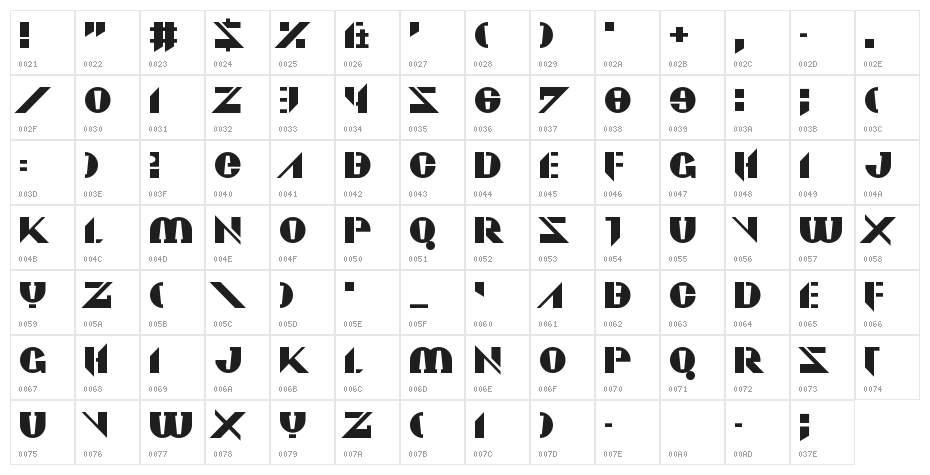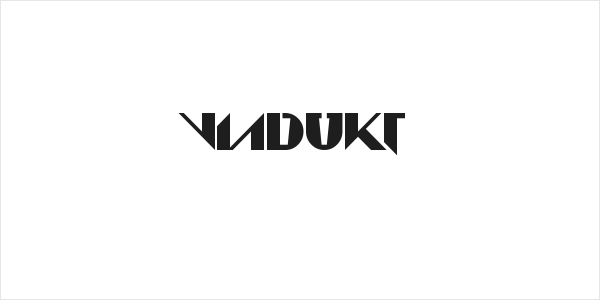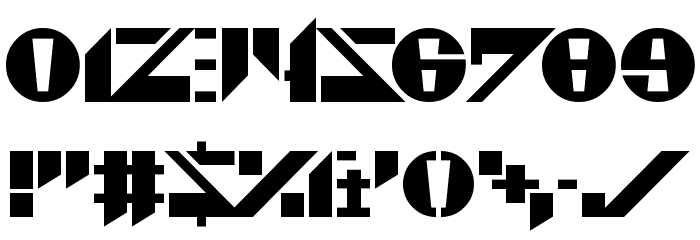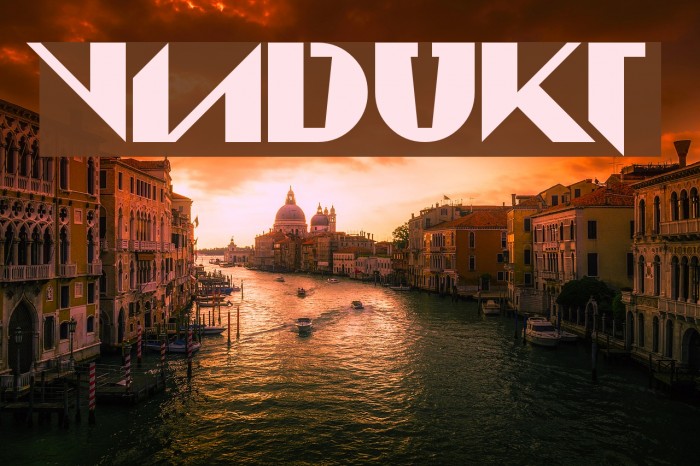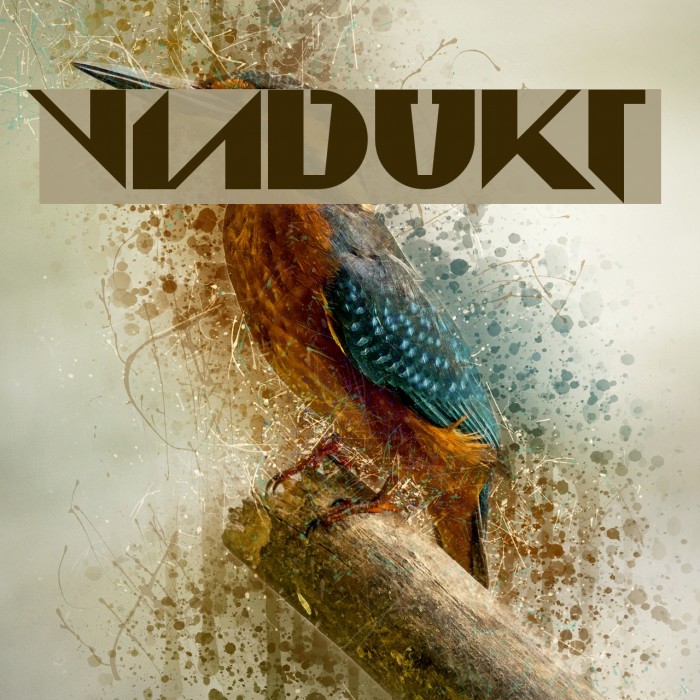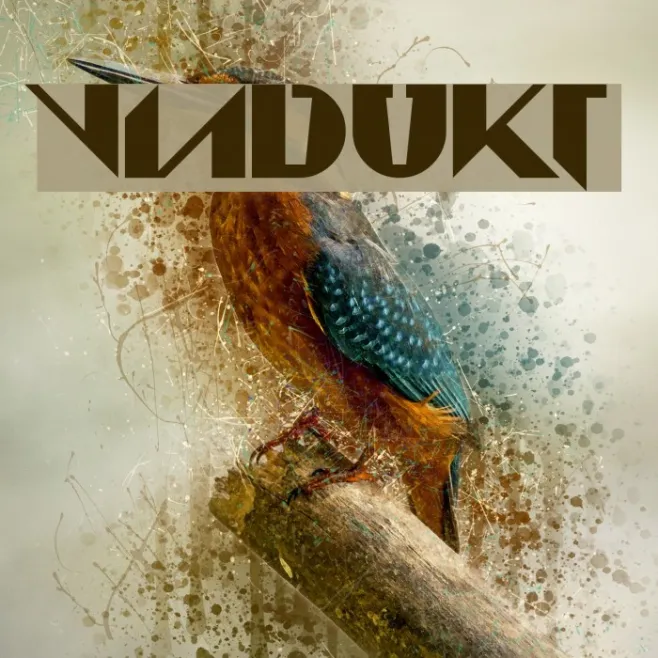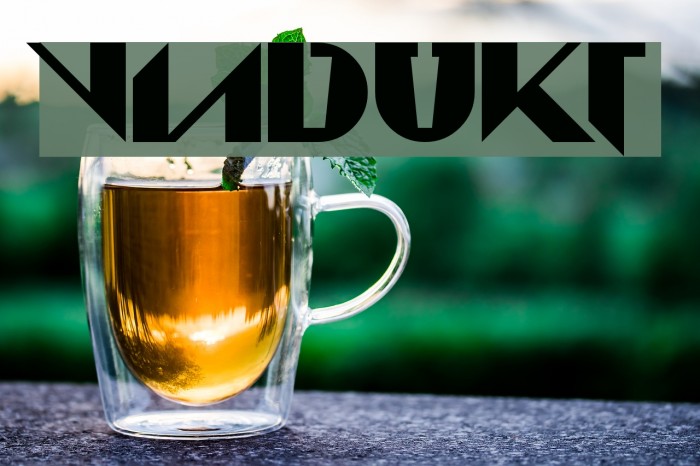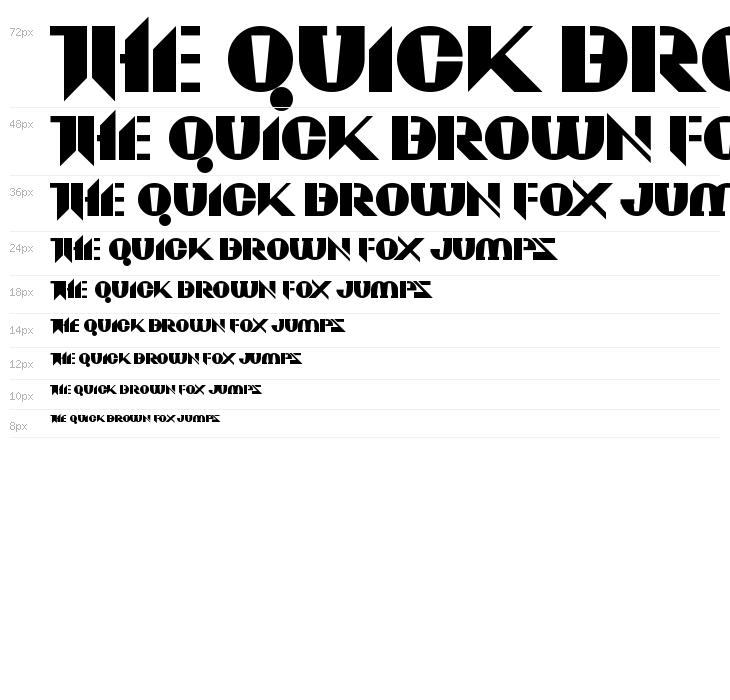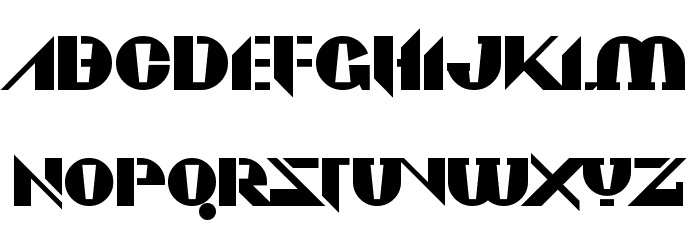
Viadukt Font
Viadukt Description
This font features a bold and striking design with a futuristic and geometric aesthetic. The characters are constructed with sharp angles and unique cutouts, creating a sense of movement and dynamism. The uppercase letters are particularly distinctive, with some characters incorporating diagonal lines and others featuring circular elements. The numbers and special characters maintain the same bold style, ensuring consistency across all elements. This font's strong visual impact makes it ideal for projects that require a modern and edgy look.
| Proposed Projects | Ideal for branding, posters, album covers, and any project needing a modern, edgy aesthetic. |